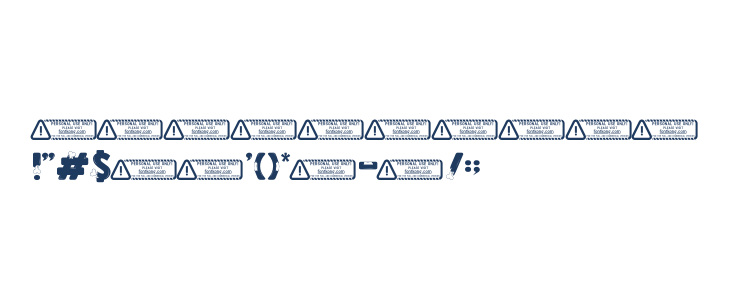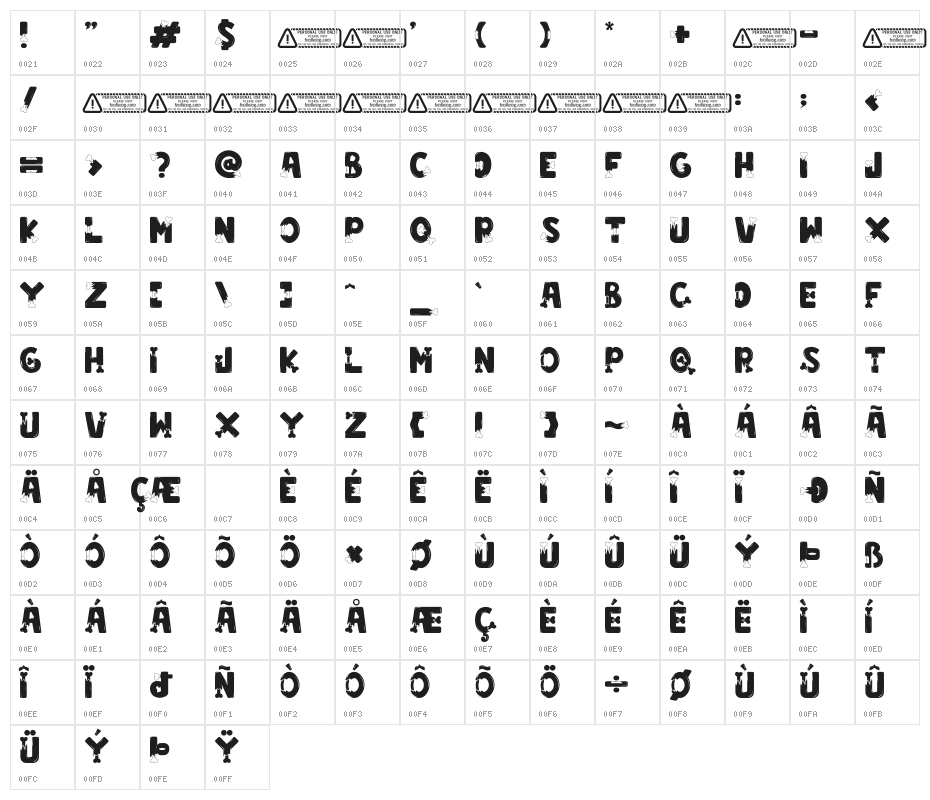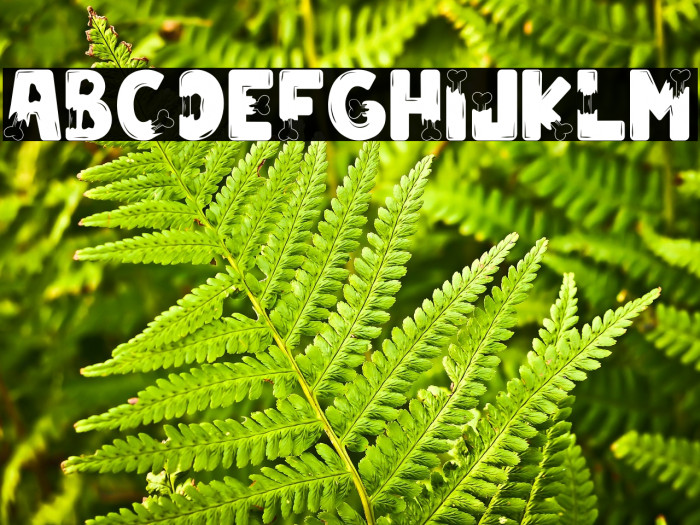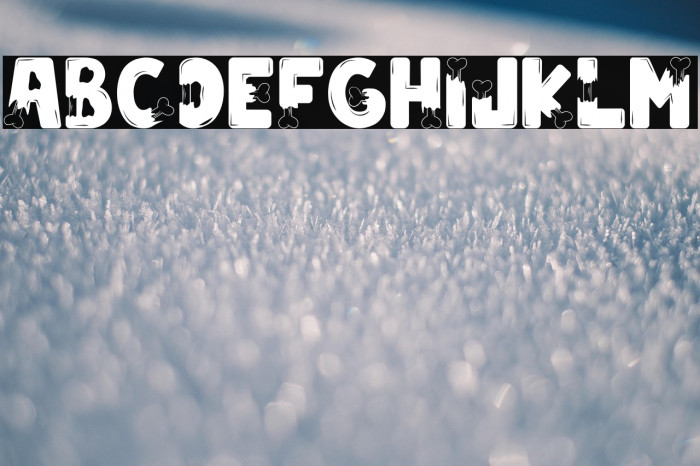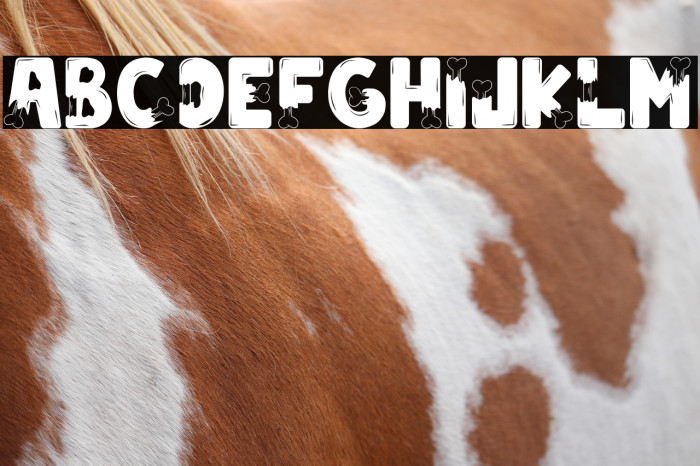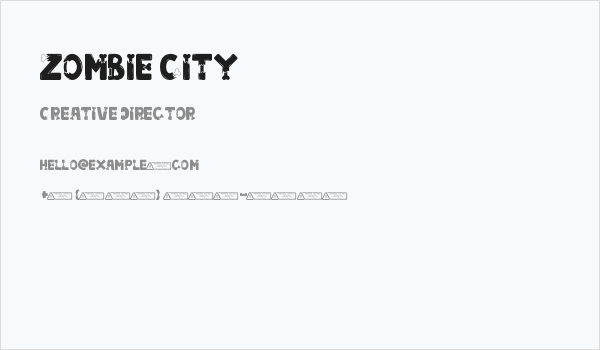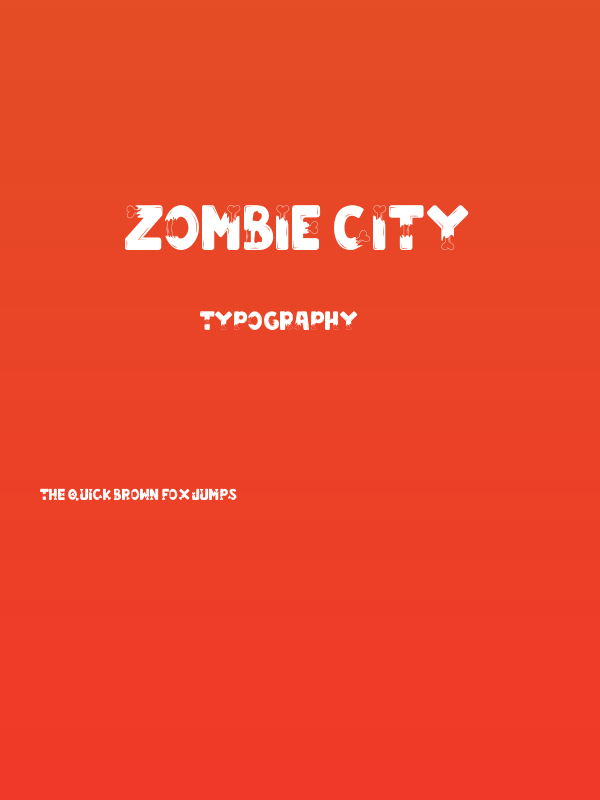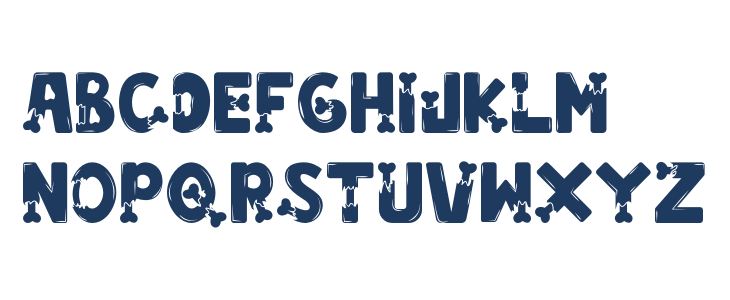
Zombie City Font
Zombie City Description
This font features a playful and spooky design, incorporating bone-like elements into the structure of each letter. The bold, blocky characters are adorned with small bone motifs, creating a whimsical yet eerie appearance. The font is highly decorative, making it ideal for themed projects that require a touch of the macabre. Its unique style is perfect for Halloween events, horror-themed posters, or any project that seeks to evoke a sense of fun and fright. The characters are evenly spaced, ensuring readability while maintaining their distinctive style.
| Proposed Projects | Ideal for Halloween invitations, horror movie posters, themed party decorations, and children's spooky storybooks. |